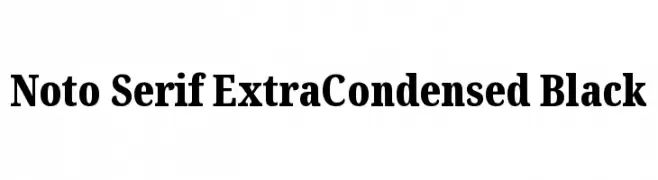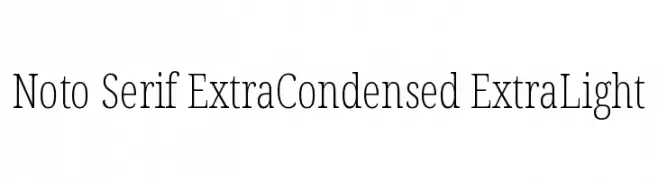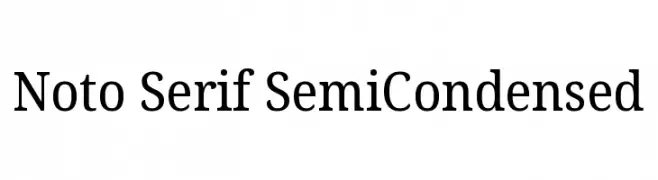
A bold, semi-condensed serif typeface with high contrast and classic elegance.
A bold, extra condensed serif typeface with high contrast and tight spacing.
A classic serif font with semi-condensed proportions, offering elegance and readability.
A refined, extra condensed serif font with an elegant and modern appearance.
A refined, light serif font with a condensed structure and elegant style.
A semi-condensed serif font with a semi-bold weight and medium contrast, offering a modern yet classic look.
A bold, semi-condensed serif font with moderate contrast and classic styling.
A classic serif typeface with semi-condensed proportions and a light weight, offering elegance and readability.
A refined, extra light serif font with a condensed structure and elegant style.
A classic serif typeface with medium weight and balanced proportions, offering elegance and readability.